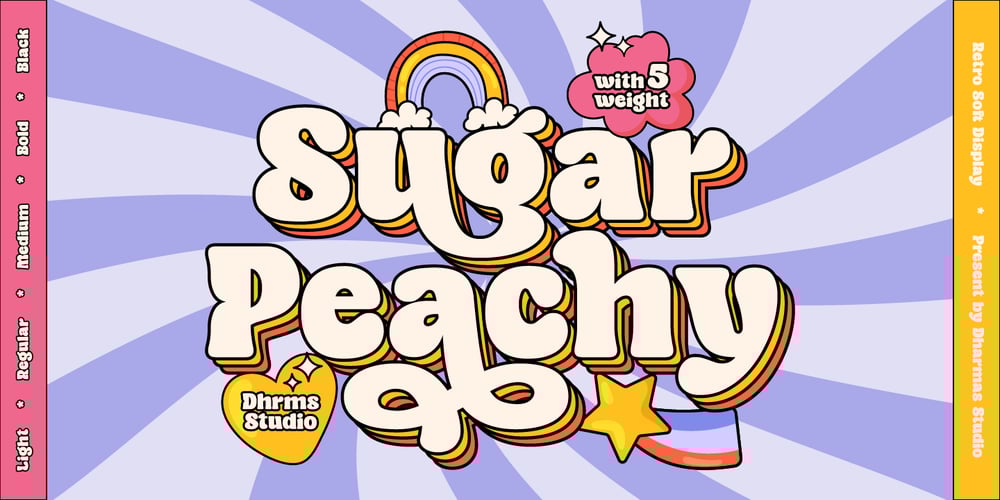
Sugar Peachy Font Family was designed by Ahmad Jamaludin and published by Ahmad Jamaludin. Sugar Peachy contains 5 styles and family package options. Hey there!Introducing Sugar Peachy Retro Soft Display – a font that exudes happiness, uniqueness, and wonder!This groovy display font has a retro 70s style with soft and chewy characteristics that are perfect for display, titling, and even logos or headers. With 5 styles ranging from thin to black, you can use it for short text or large displays.Plus, Sugar Peachy has special features like alternates and ligatures that make it ideal for all kinds of design purposes like branding, product design, websites, posters, stickers, merchandise, and more!Similar Item: Gyoza : https://www.myfonts.com/collections/gyoza-font-ahmad-jamaludin Gunydrops : https://www.myfonts.com/collections/gunydrops-font-ahmad-jamaludin Kelpo : https://www.myfonts.com/collections/kelpo-font-ahmad-jamaludin Swipe: https://www.myfonts.com/collections/swipe-font-ahmad-jamaludin Replay : https://www.myfonts.com/collections/replay-font-ahmad-jamaludin Bright : https://www.myfonts.com/collections/bright-font-ahmad-jamaludin Margin : https://www.myfonts.com/collections/margin-font-ahmad-jamaludin Nighty : https://www.myfonts.com/collections/nighty-font-ahmad-jamaludin What you get? Sugar Peachy Light Sugar Peachy Regular Sugar Peachy Medium Sugar Peachy Bold Sugar Peachy Black Features : Alternates and Ligatures Instructions ( Access special characters, even in circuit design ) Letters, numbers, symbols, and punctuation No special software is required to use this typeface even work in Canva Multilingual Support Give your design projects that fun, playful edge with Sugar Peachy!Thank you,Dharmas Studio